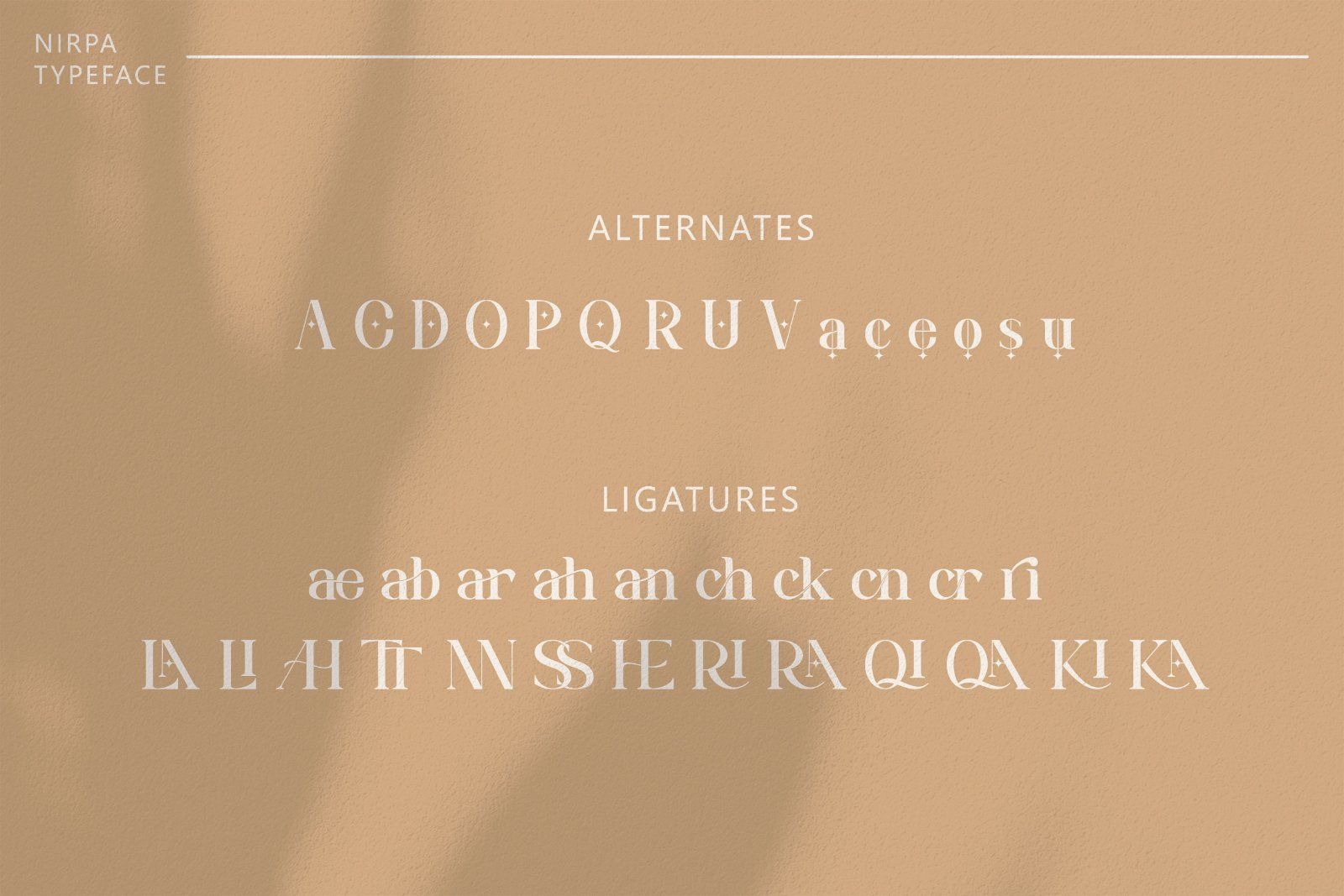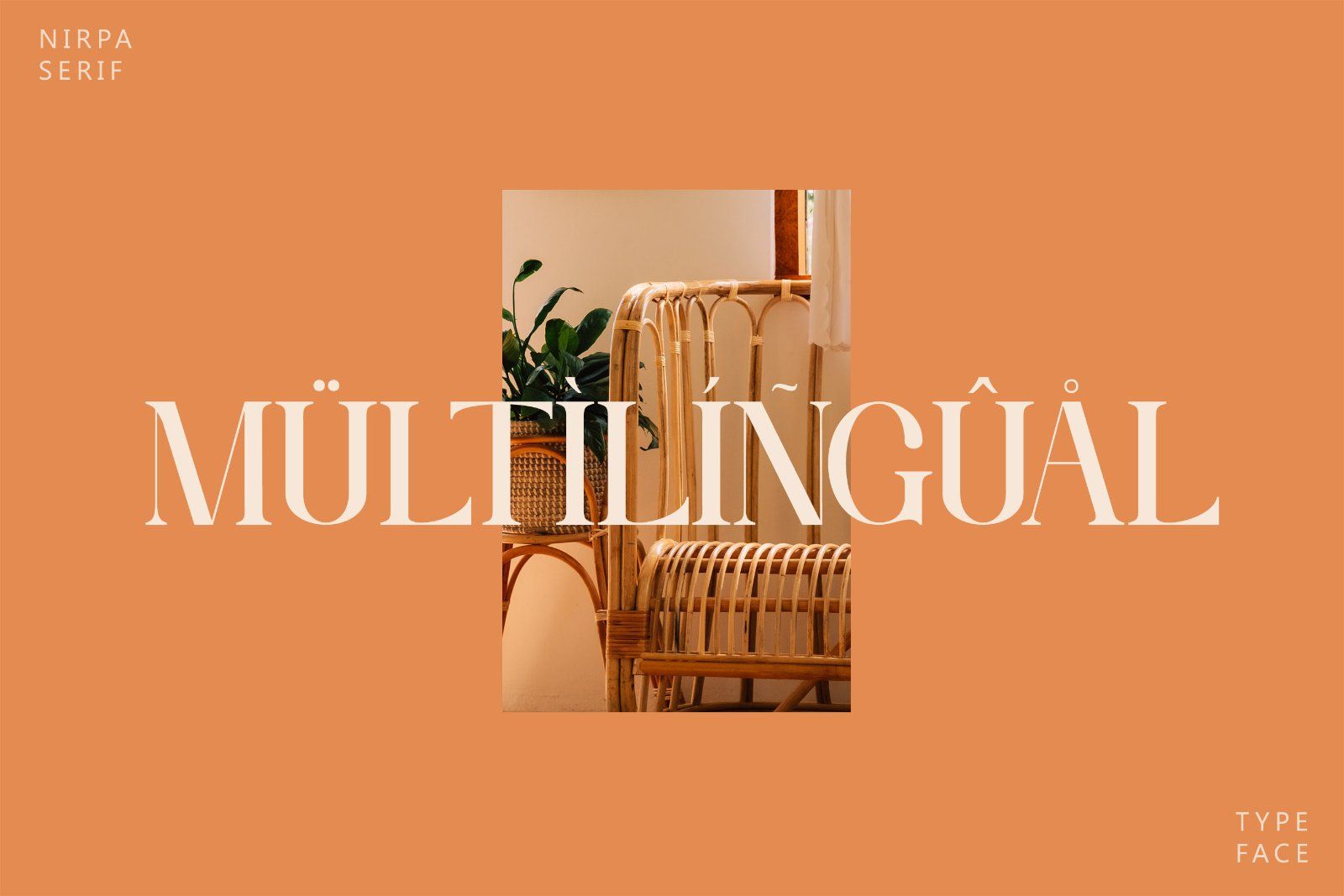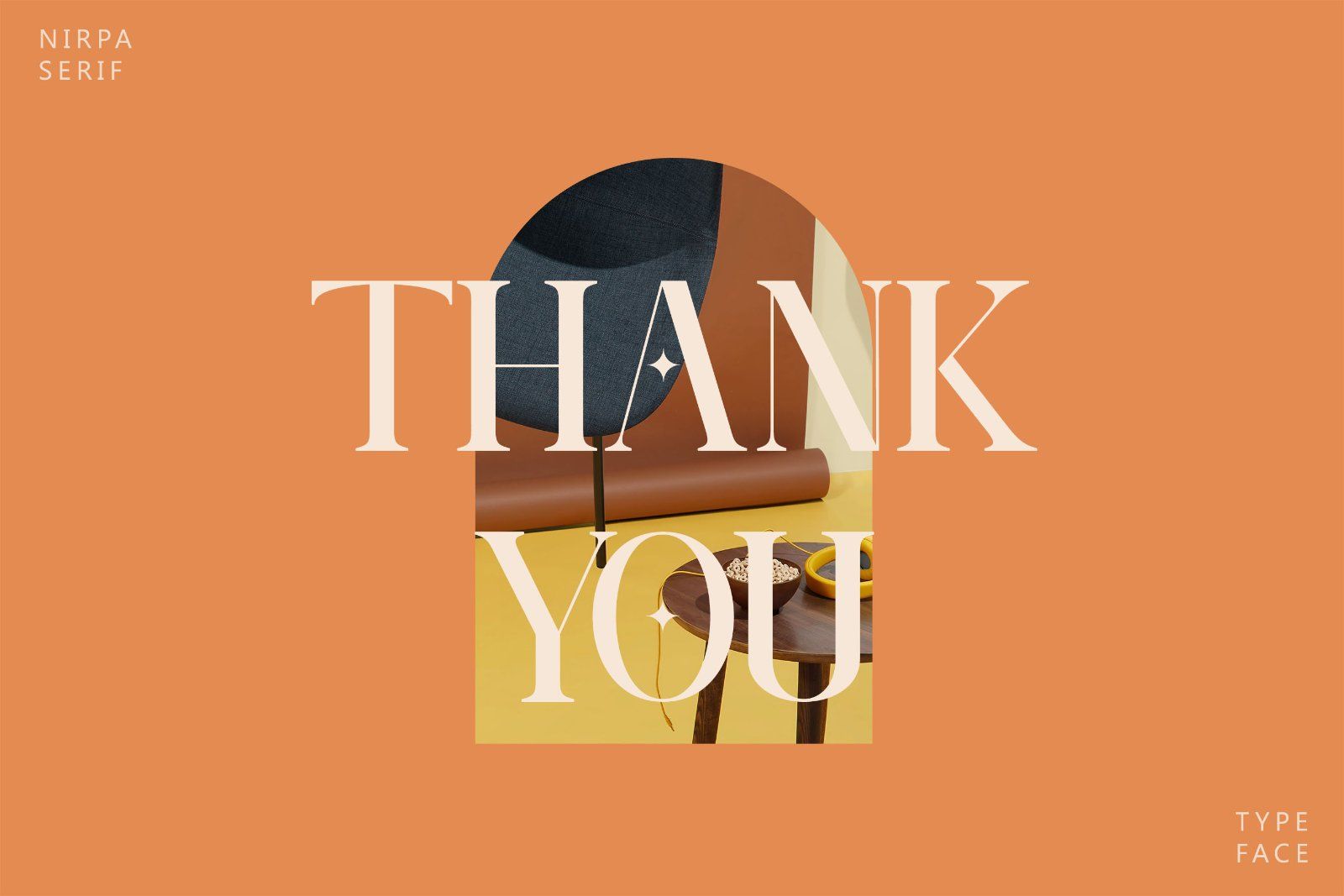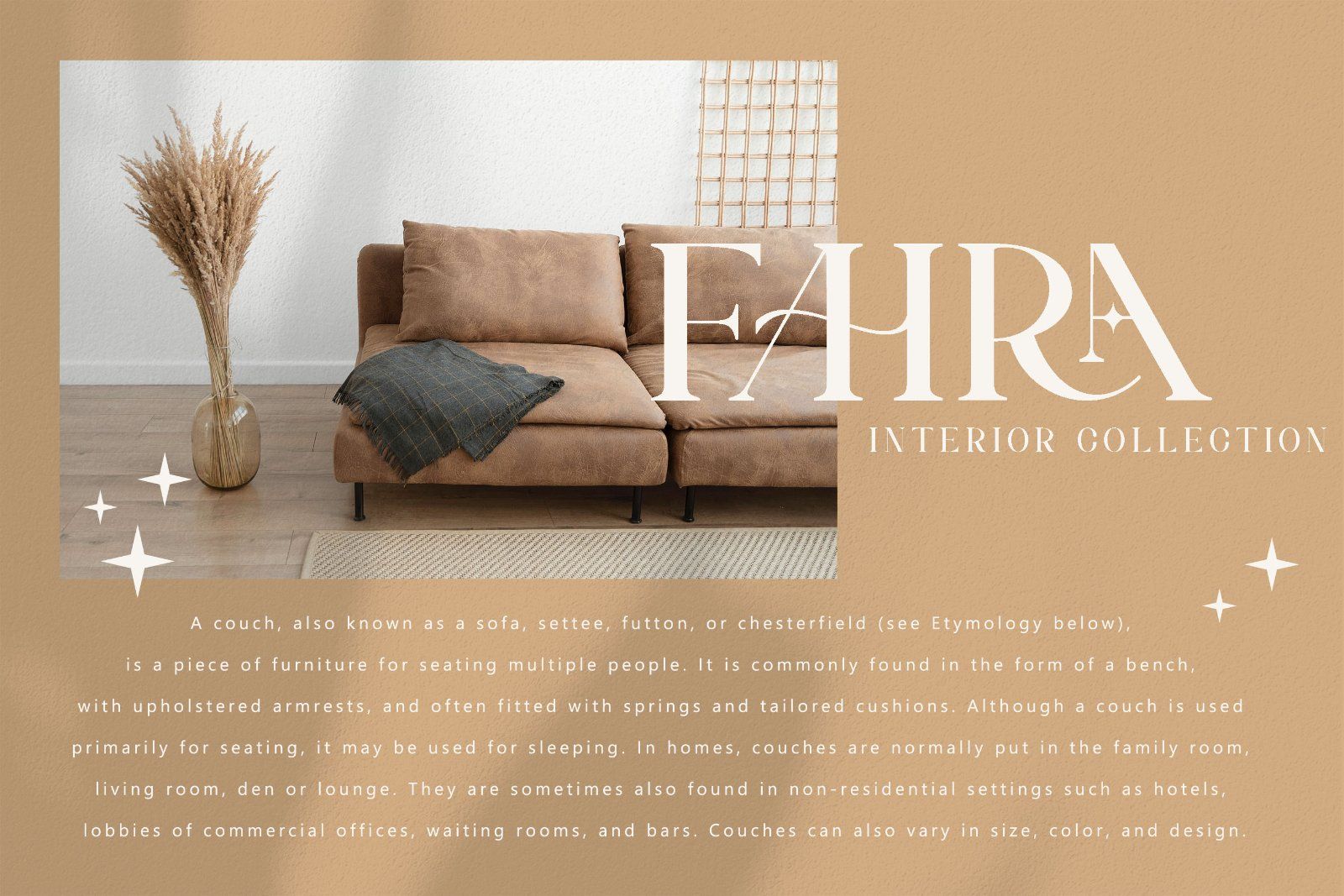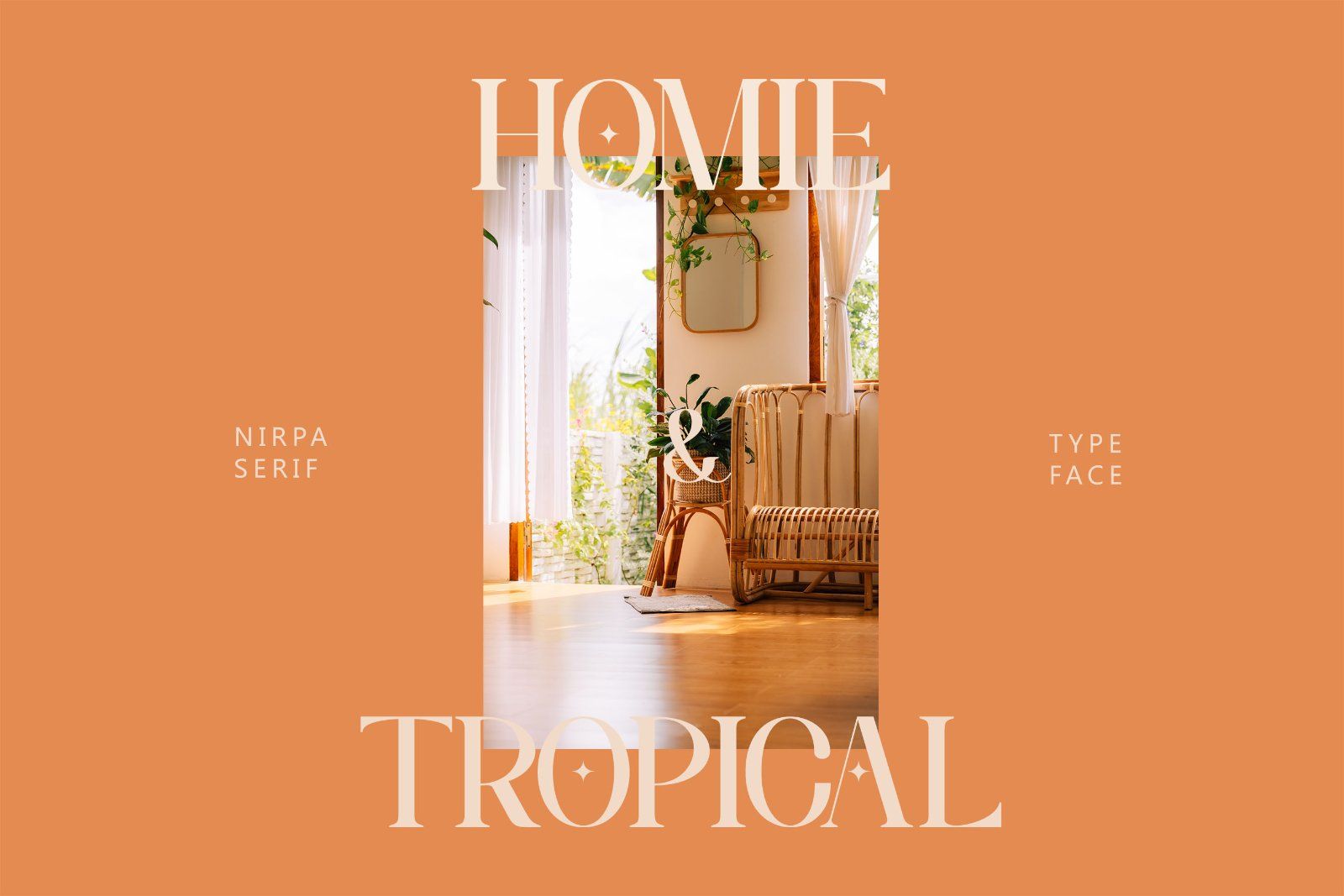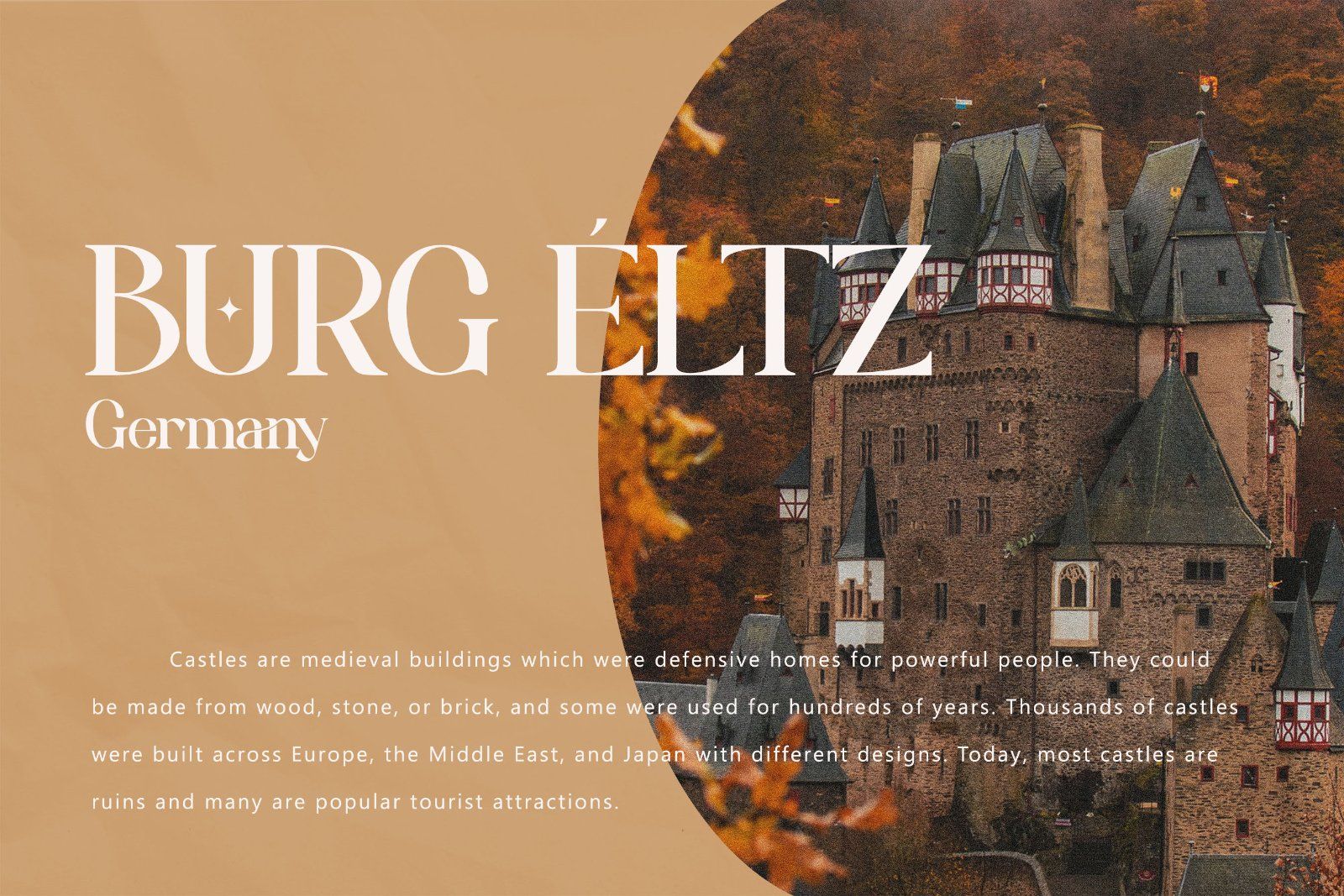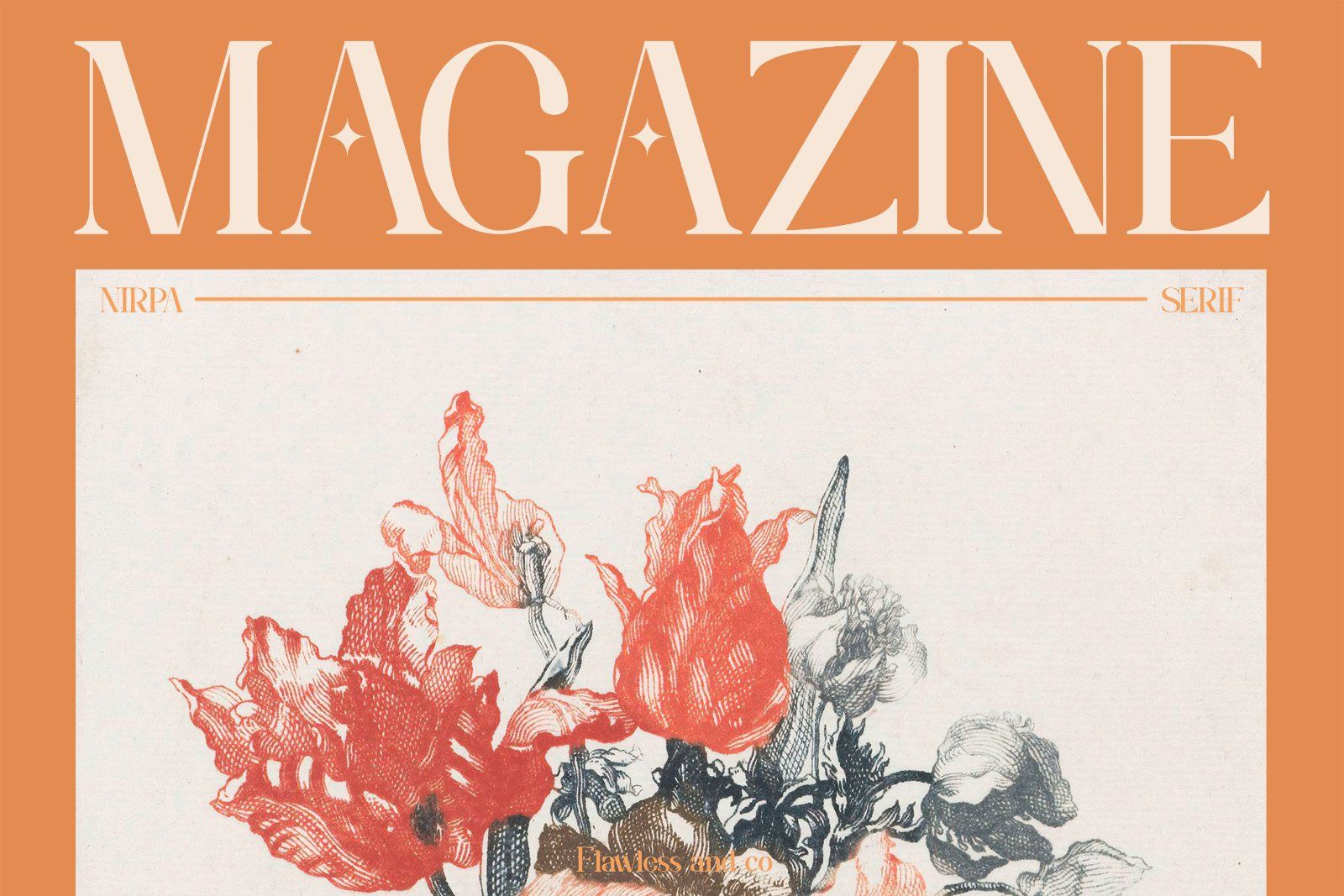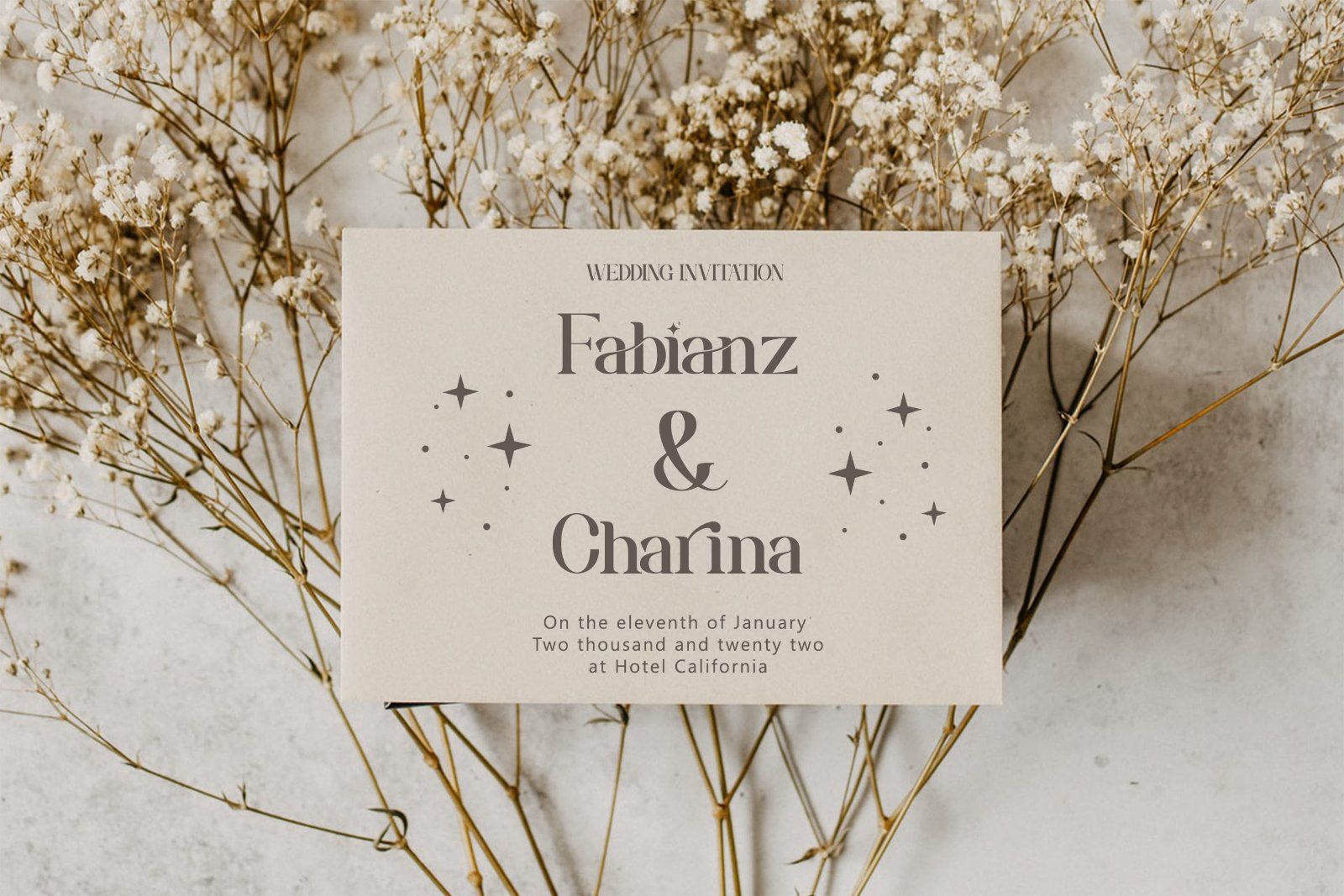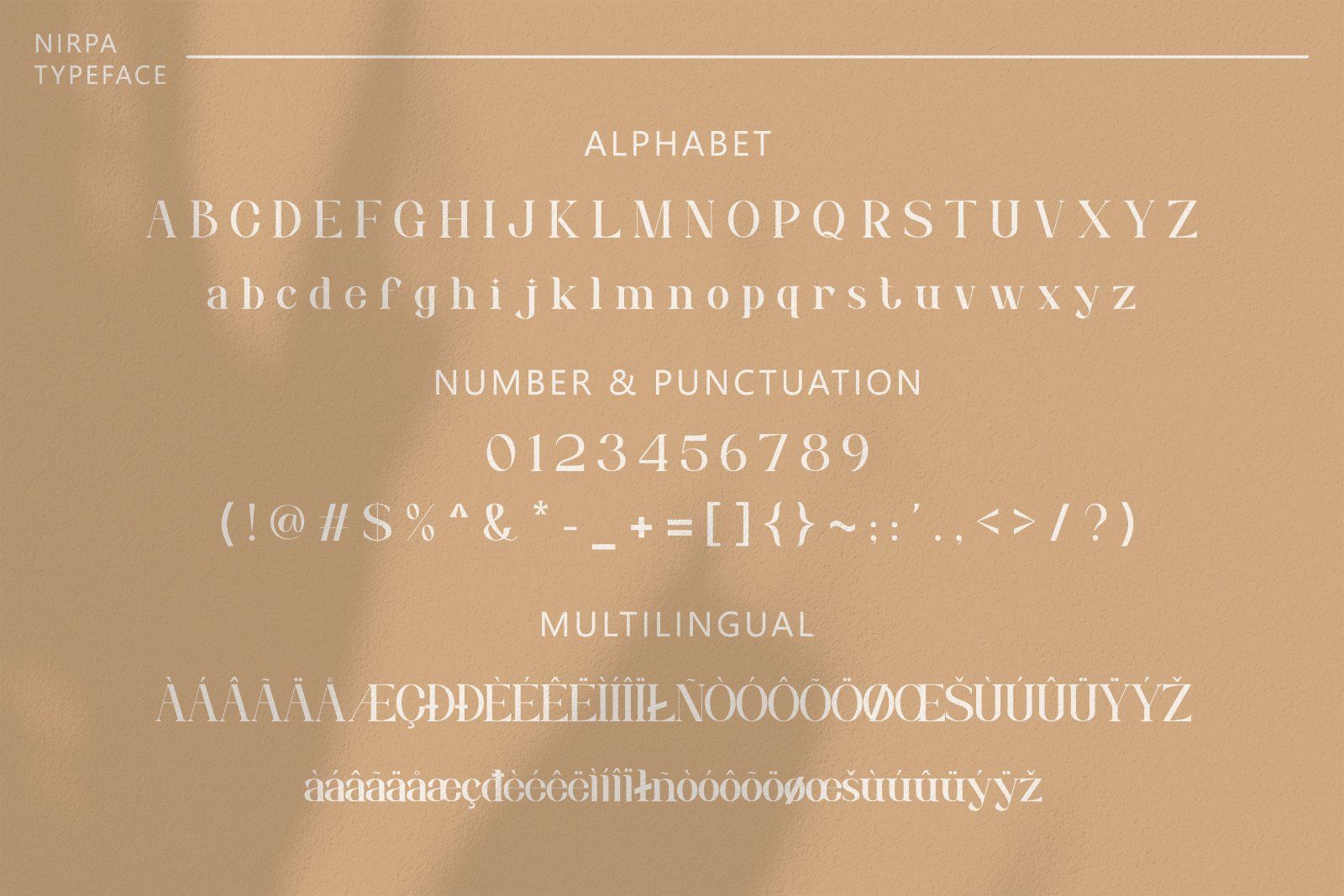
NIRPA is an elegant serif font that blends refined sophistication with a timeless sense of style. Featuring graceful curves, balanced proportions, and distinctive letterforms, NIRPA brings a luxurious and polished character to every design.
• Uppercase alphabet A-Z
• Lowercase alphabet a-z
• Alternate Character
• Numbers 0-9
• Some punctuation